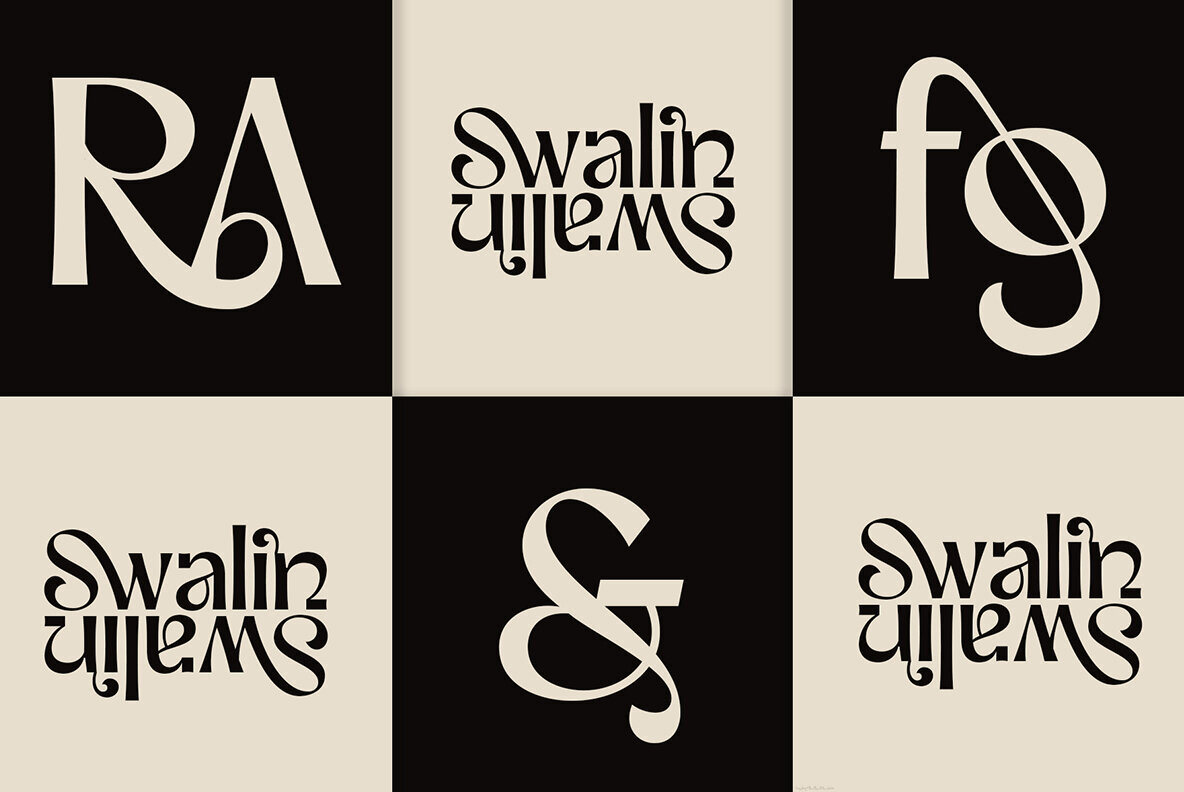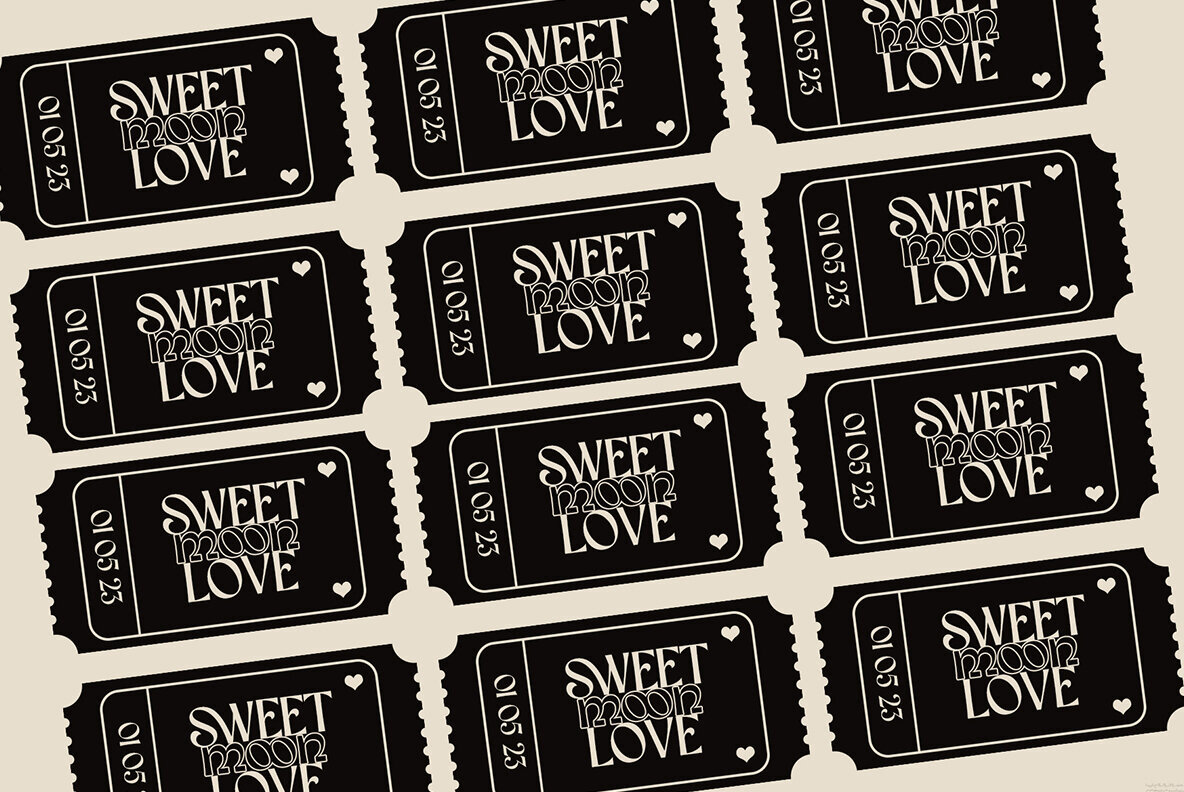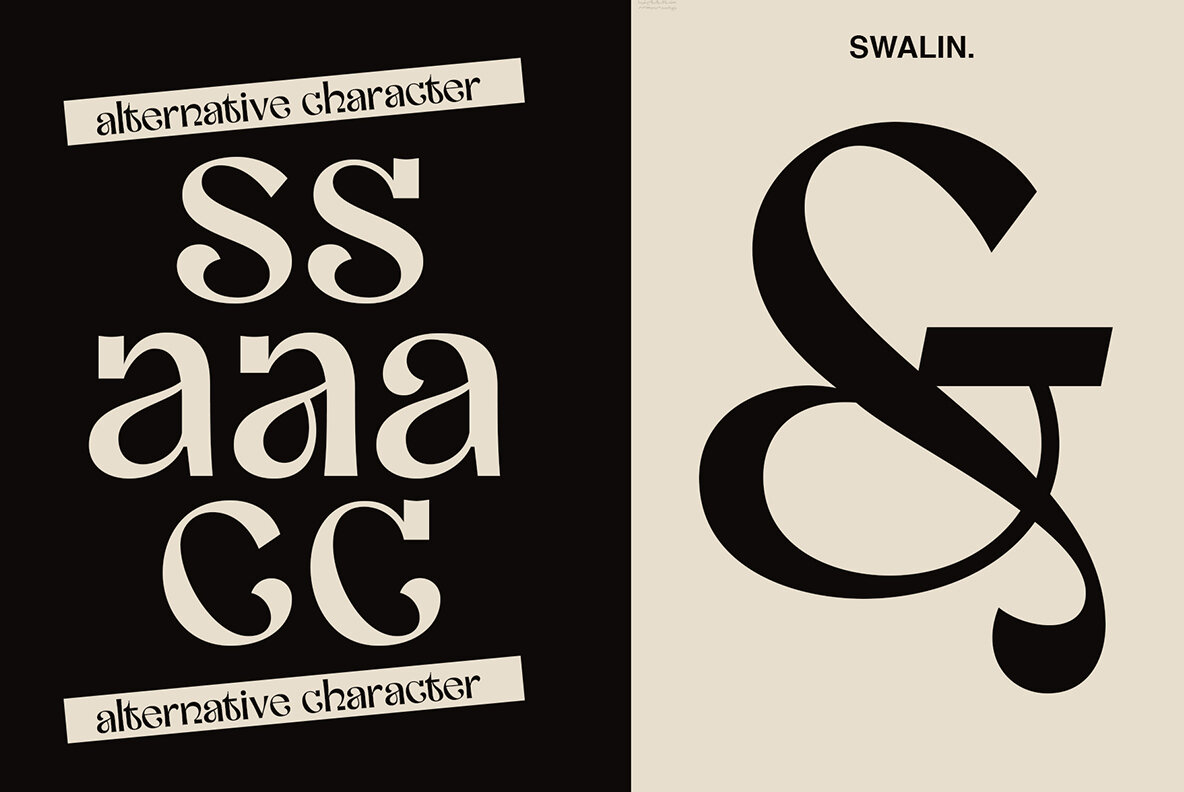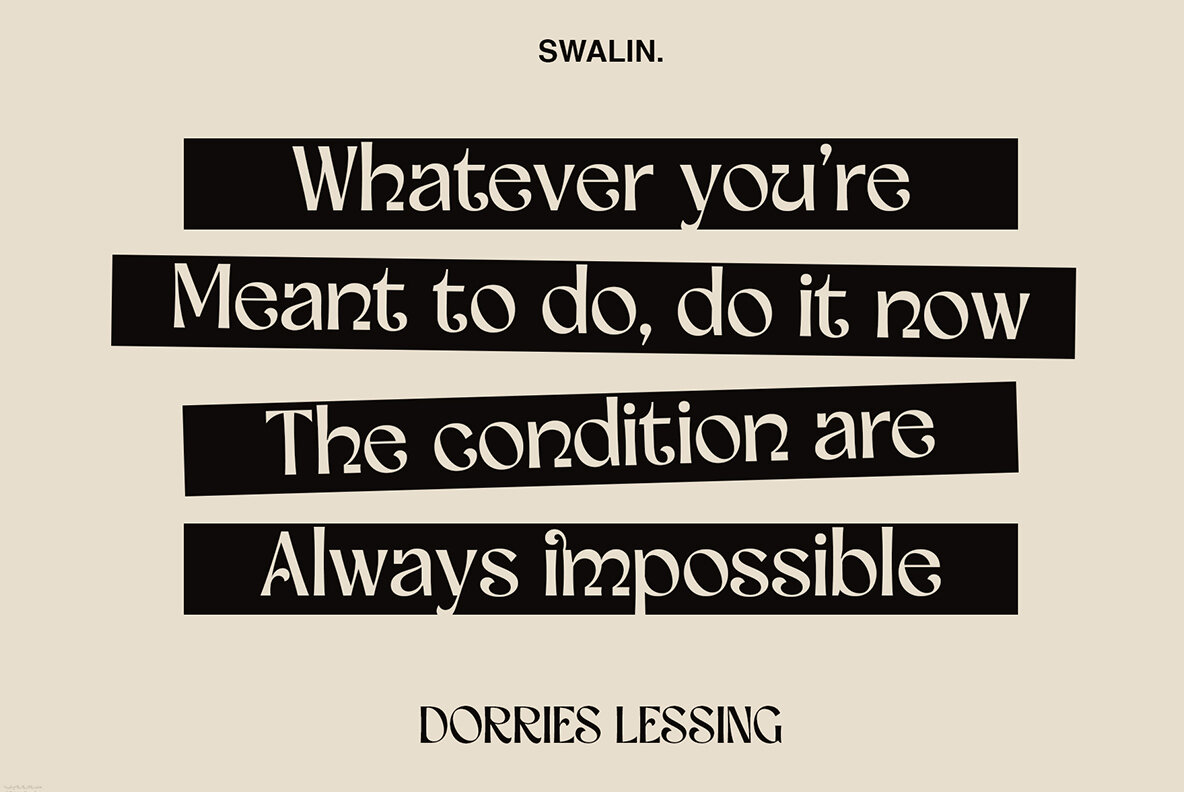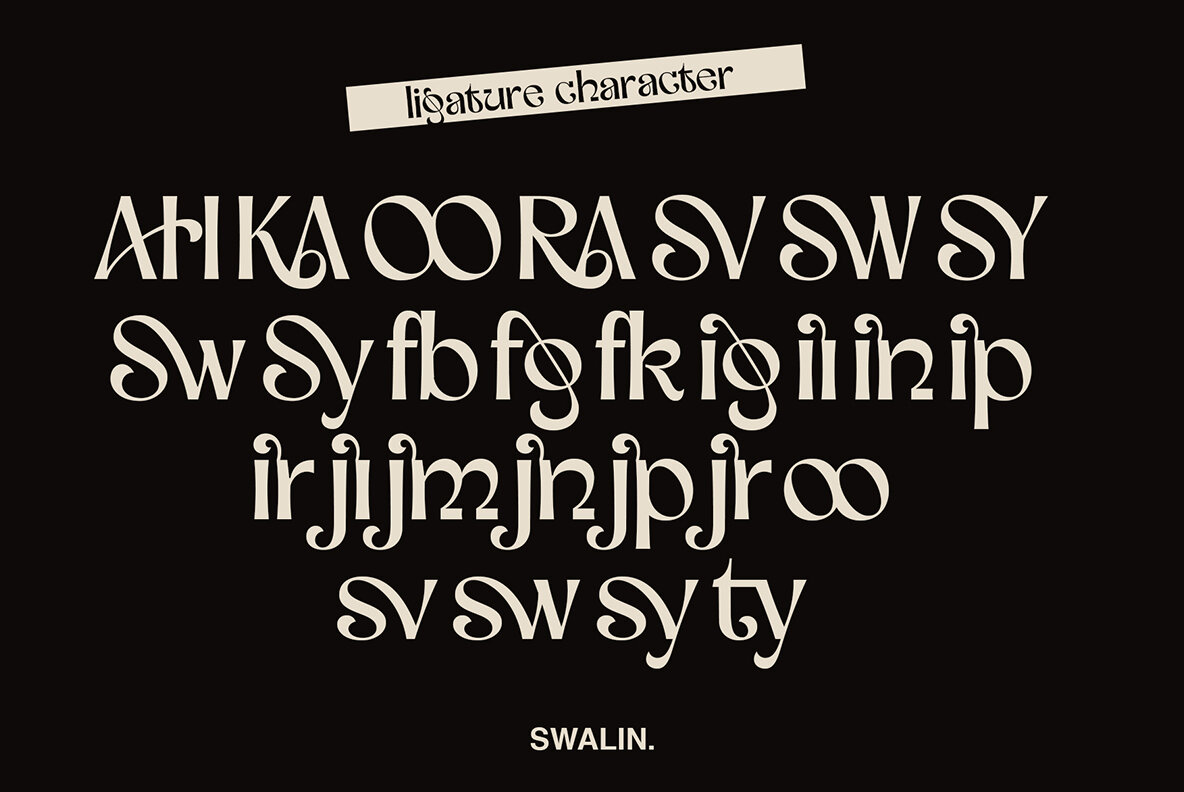
Swalin Font
Swalin Regular
"Swalin" is a sophisticated Serif display font designed with a classic and elegant aesthetic. Its refined styling includes a feminine touch, perfectly balanced with a range of beautiful alternates to enhance your creative projects. Swalin's unique combination of classic and modern elements makes it suitable for a wide range of projects, bringing both sophistication and charm to your typography.Swalin: Elegant Serif Font with a Feminine Touch
Features of Swalin
Perfect for Various Projects